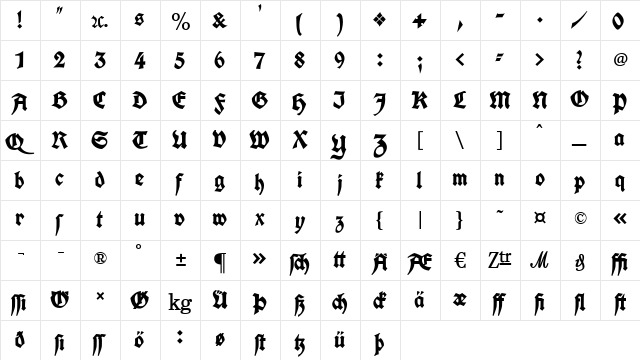
Koch Fette Deutsche Schrift Regular
| Foundry | Font by Rudolf Koch 1910 digitized by Peter Wiegel |
| Designer | Peter Wiegel |
Design Context for Koch Fette Deutsche Schrift Typeface
Koch Fette Deutsche Schrift is a composed and adaptable typeface that performs quietly and consistently across a wide range of design contexts.